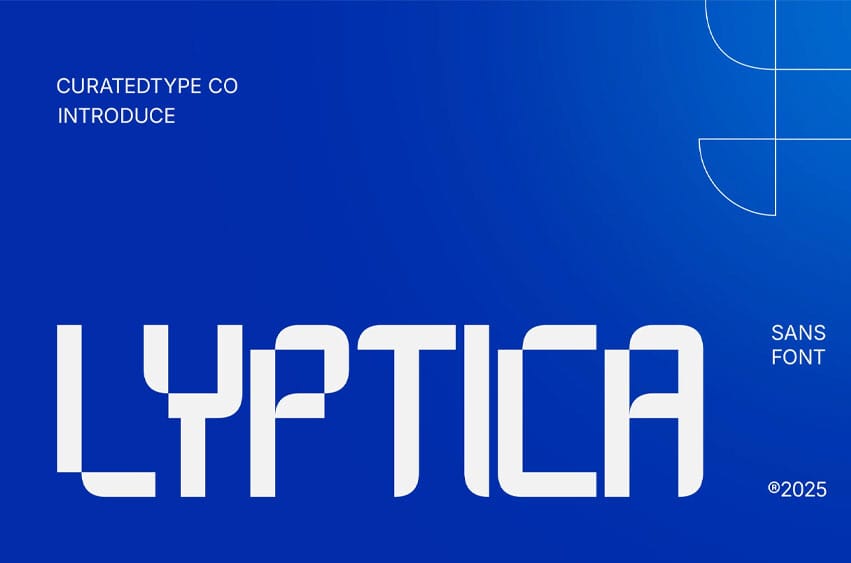
Lyptica Font is a modular modern geometric display font defined by its clean, bold lines and futuristic charm. Each character is engineered with balanced proportions and distinctive shapes that immediately capture attention, making it perfect for headlines, posters, and branding projects where modern sophistication is key.
Every element of Lyptica exudes precision—from its meticulously crafted strokes to its consistent, striking forms. Its versatility shines across digital interfaces and print media, offering designers a typeface that effortlessly marries functionality with a bold, contemporary aesthetic.